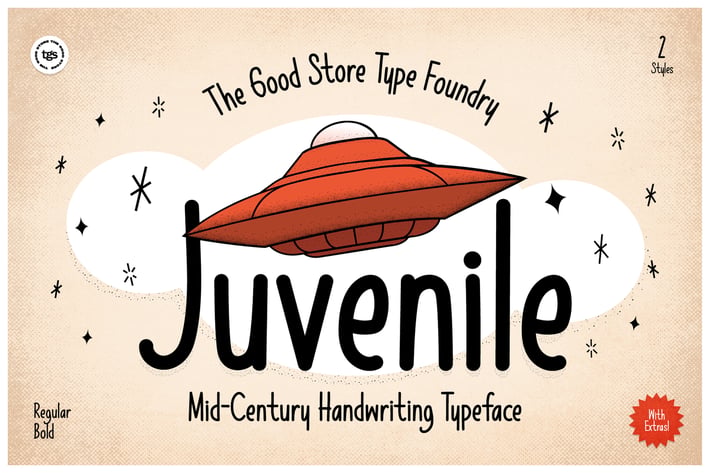
Juvenile Typeface + Flyers + Instagram + Badge
A Mid-Century Handwriting Display Typeface that comes in Regular & Bold styles.
Juvenile is a Handwriting Display Typeface that inspired by a juvenile handwriting style back from the 1950s